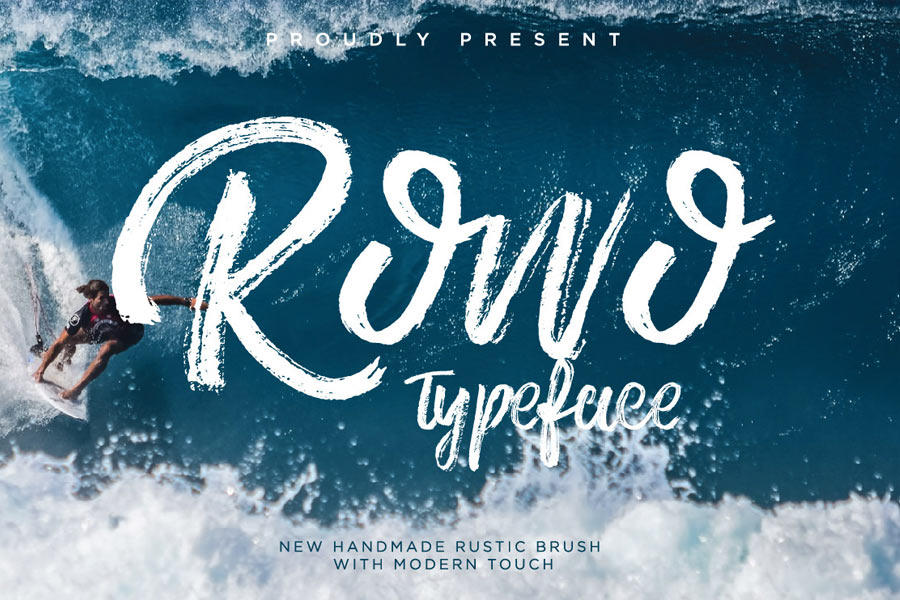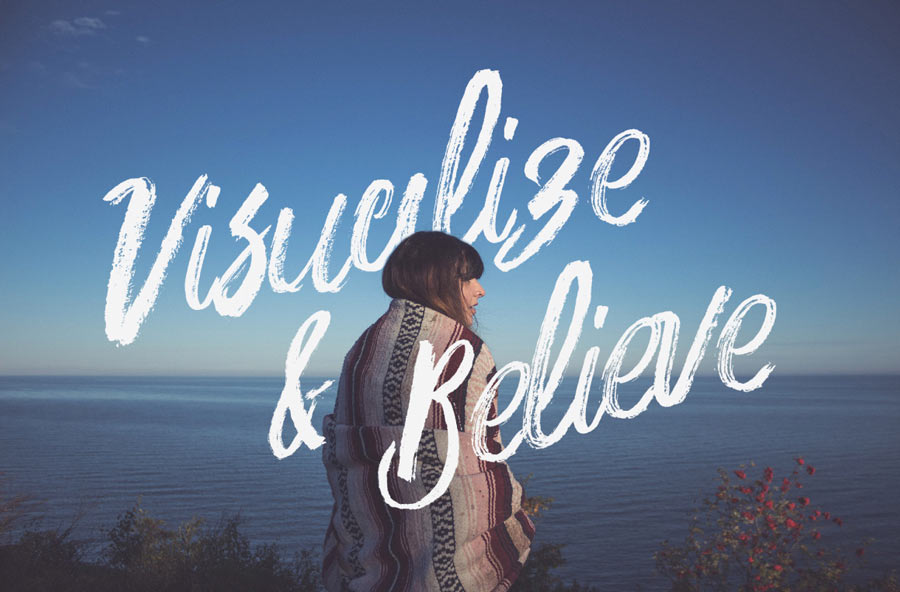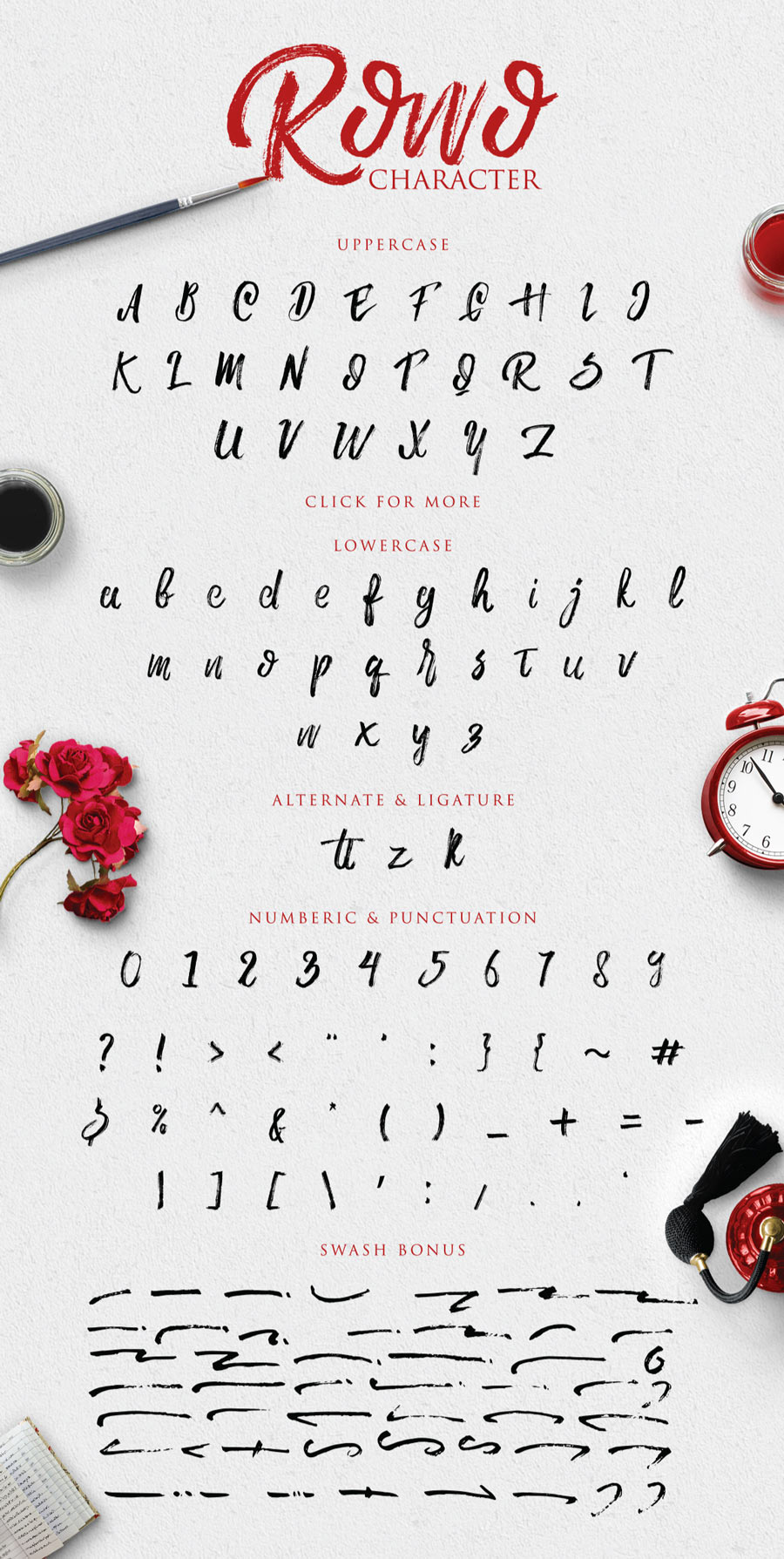
Rowo is a handmade brush font that features natural textures of brush strokes. This brush font is still quite fluidic and harmony despite its heavy feature in brush strokes, and it’s really suitable for display text and quotes.
Rowo typeface covers the basic latin characters like uppercases, lowercases, numbers and punctuations, also some bonus swashes to complement your design.